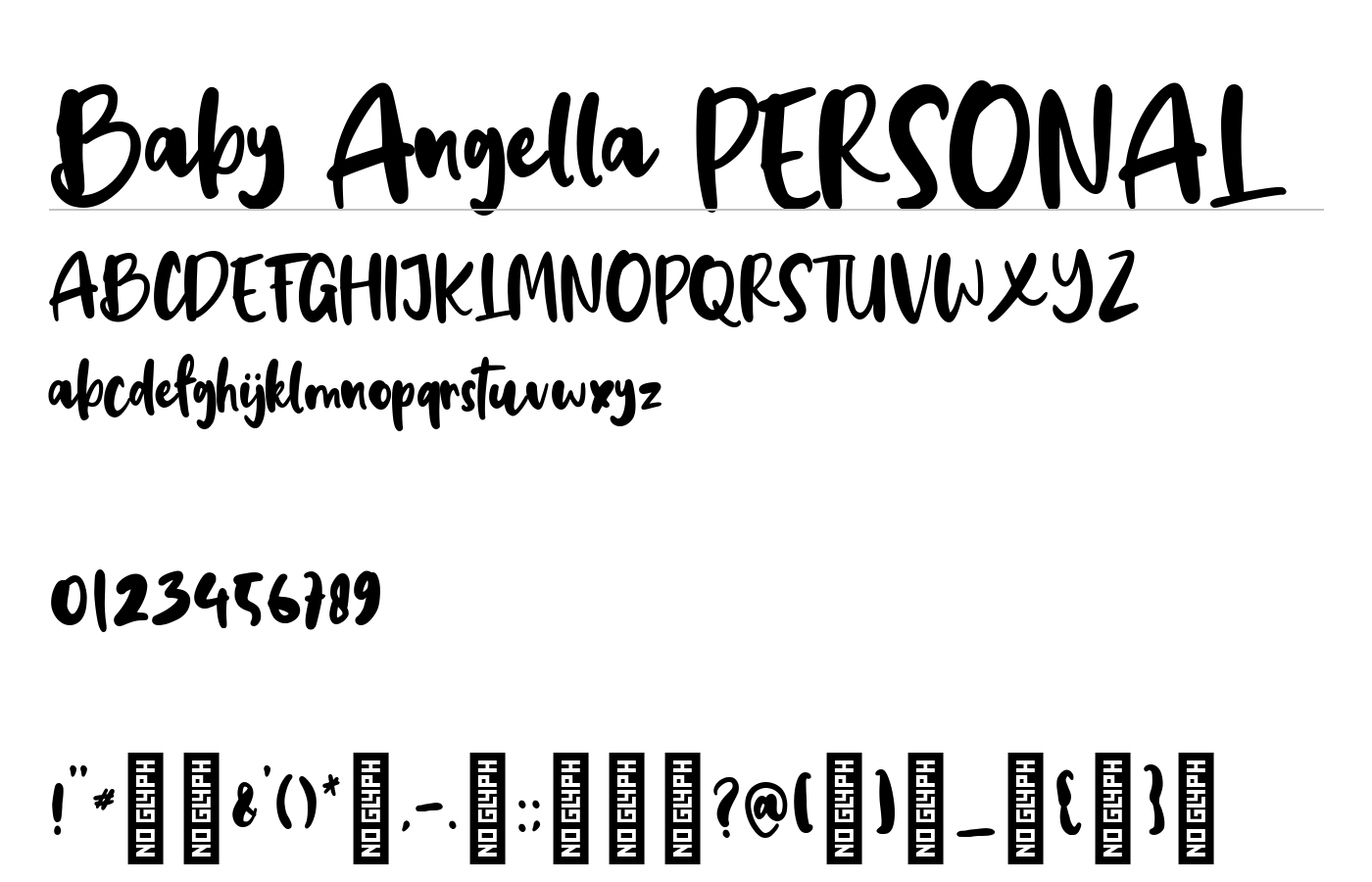
Baby Angella is a playful and casual script font with smooth, rounded strokes and a friendly handwritten feel. Its medium weight and lively letterforms make it perfect for branding, invitations, and informal designs that need a warm, approachable touch. This font works well for projects seeking a charming, personal style without sacrificing readability.
Baby Angella Font
About Baby Angella Font
| Font family | Baby Angella Font |
| Designer | Hasna - Viola Type |